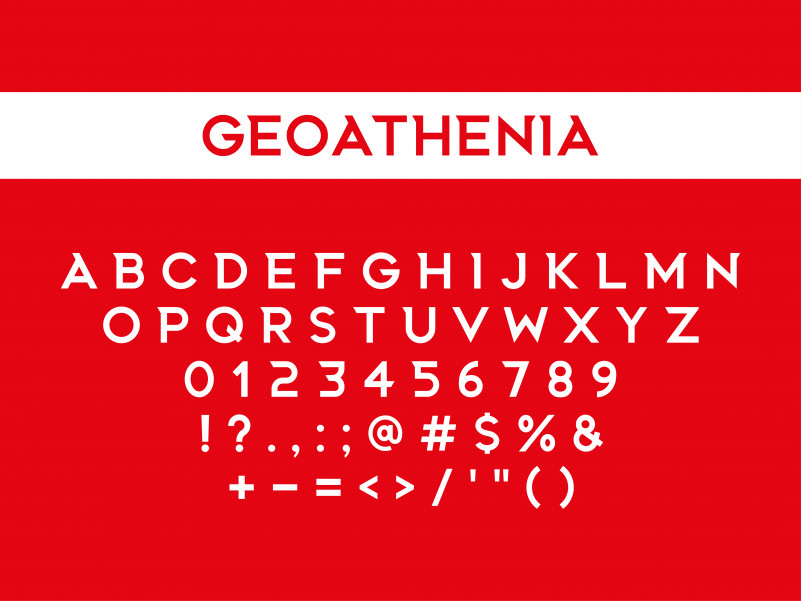
Geoathenia Font
This is a modern geometric display font designed by IKRAMUL HADI KHAN.
It has only uppercase letters with numbers and standard punctuation glyphs.
“GEOATHENIA” is perfect for logos, branding, display & headings.
It has an exclusive Sans Serif version named “Geoathenia Sans“.